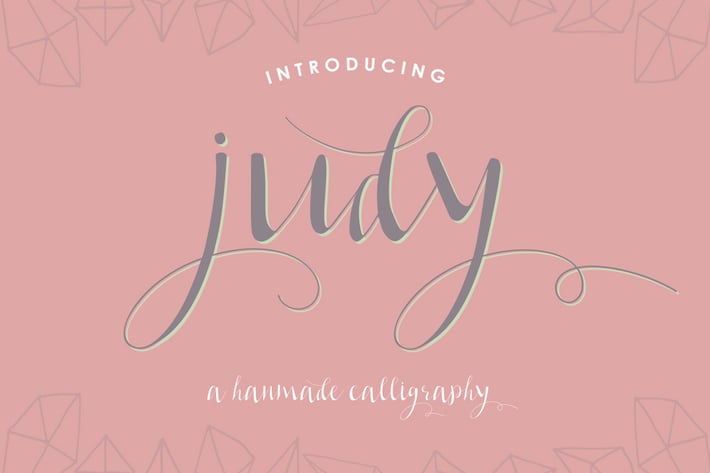
Judy Font
Judy is a playfull handwritten font, this font come with ornament bonus. so you can play with it. this font perfect for greeting card, invitation, poster, quote, and other project design.